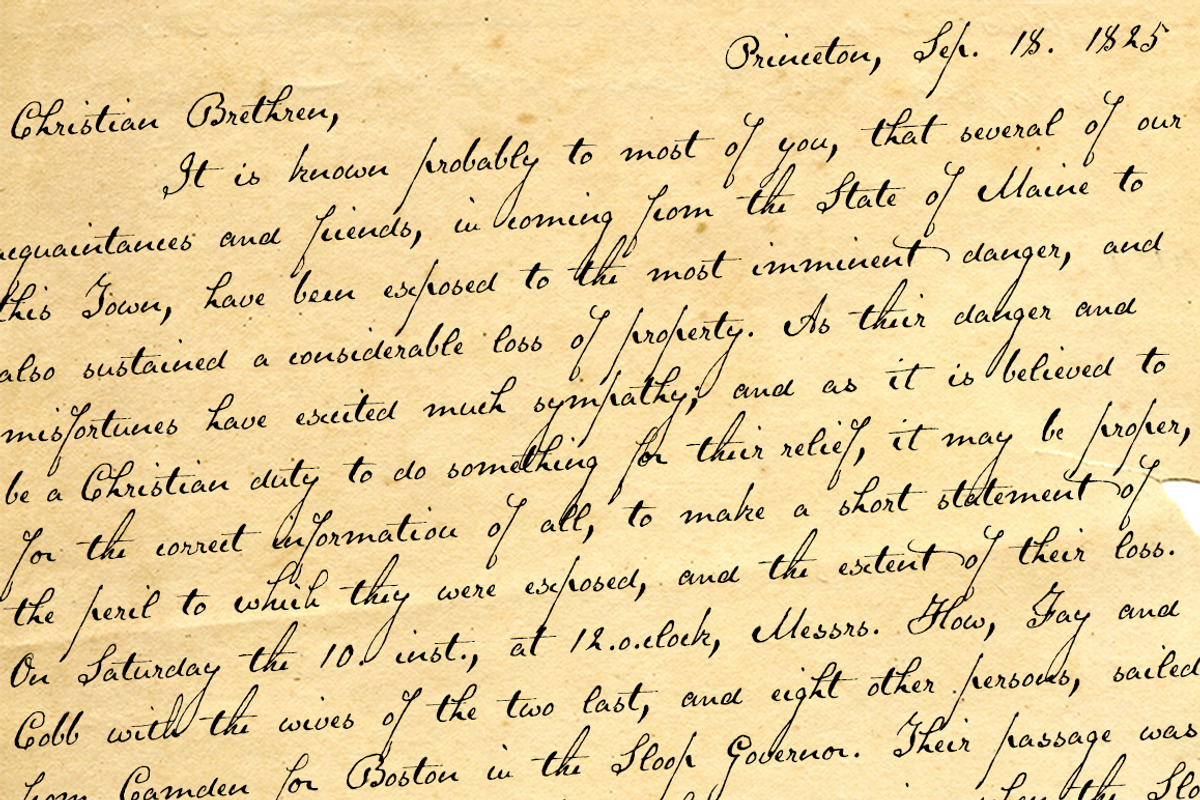
Schooner Script, an 1800s pen font
Schooner Script, an 1800s pen font by Three Islands Press is a font selected for branding, posters, packaging, typography.
- Schooner Script's 500-plus glyphs include multiple ligatures, lining and old-style figures, an inkblot or two, and support for Central/Easte
Why Schooner Script, an 1800s pen font is worth a look
Schooner Script, an 1800s pen font by Three Islands Press fits naturally into Branding, posters, packaging, typography.